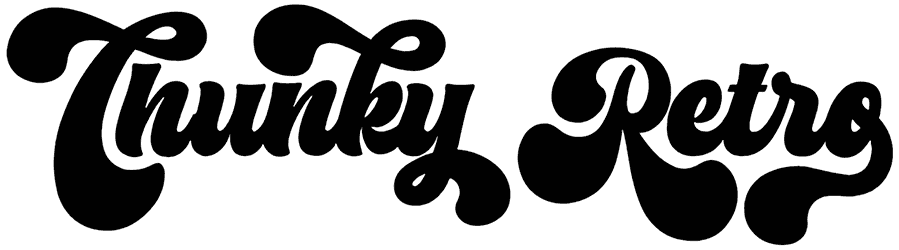
Chunky Retro Font
Some fonts instantly transport you to a different era, and Chunky Retro does exactly that. With its thick, rounded letterforms and smooth groovy personality, it captures the optimism and playful energy of vintage design while still feeling fresh enough for modern projects. Every character feels bold, approachable, and packed with personality, making this retro font perfect for branding, packaging, posters, stickers, apparel, social media graphics, and lifestyle products that need a touch of nostalgic charm.
The generous curves give headlines a friendly confidence that naturally draws attention without feeling aggressive. Sometimes great typography isn’t about precision or minimalism; it’s about creating an emotional connection that makes people smile before they’ve even finished reading the words.